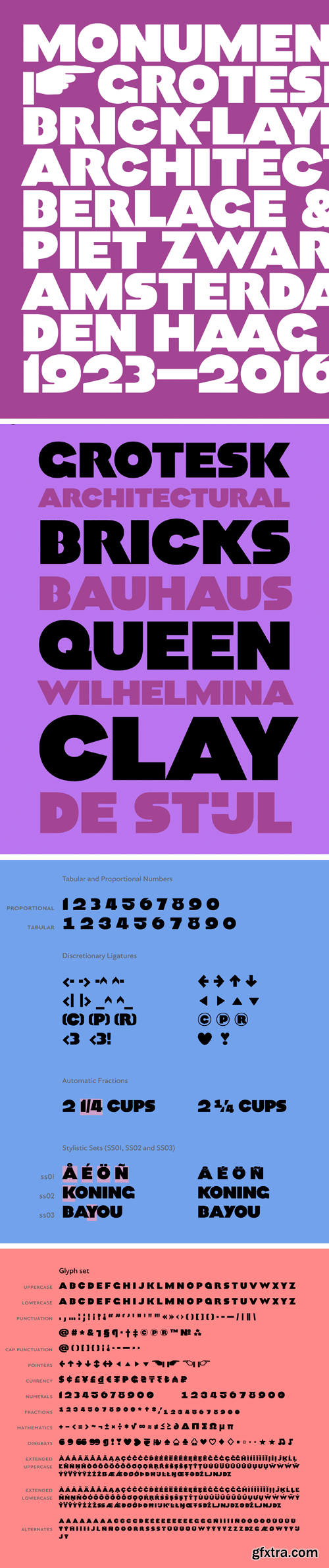
Monumental Grotesk Font
Monumental Grotesk is a true The Hague typeface: its stone-carved forms grace a few buildings and a monument in the government quarters. It’s based on the work of graphic designer Piet Zwart, a Dutch Bauhaus proponent.
Zwart used a similar style for a range of posters for a rubber floor manufacturer (which Ian Lynam referenced in his font Rubber Vloeren), but where those letters look severe, his design for Berlage is almost cosy. It’s an incredible contrast, and it was the stone letters that I wanted to bring to life.